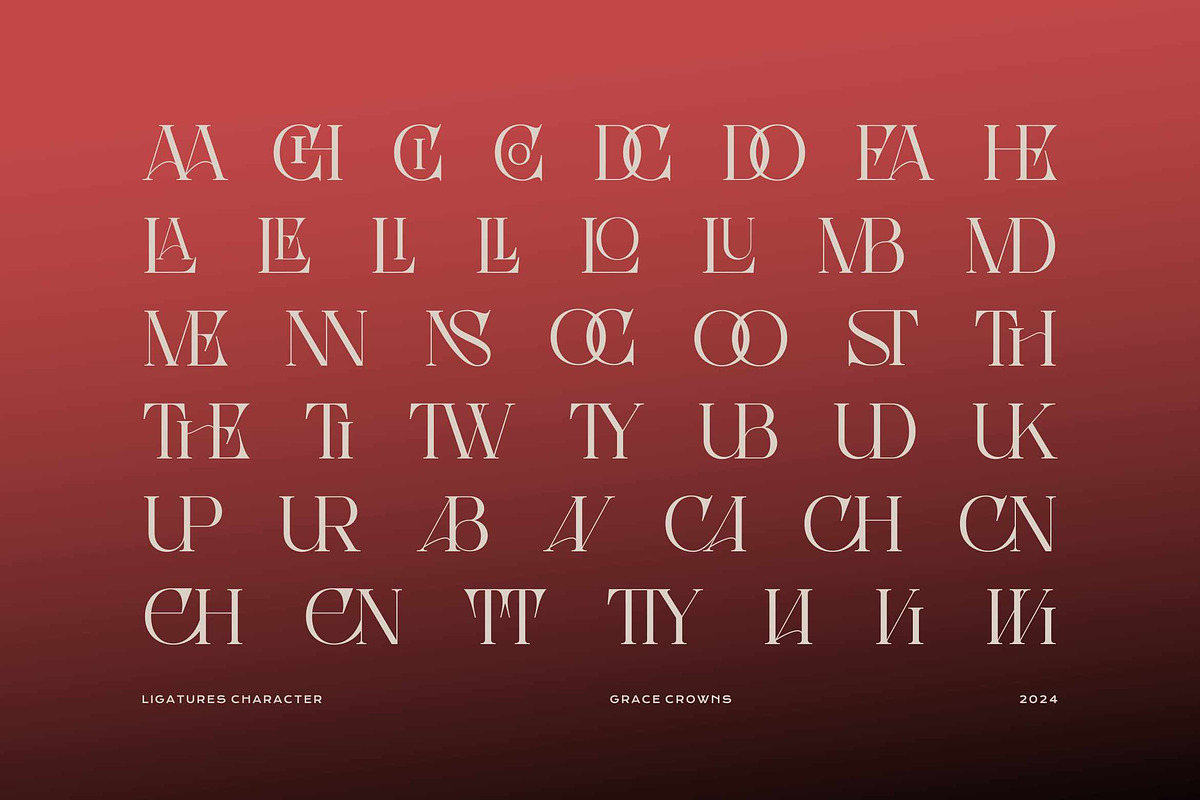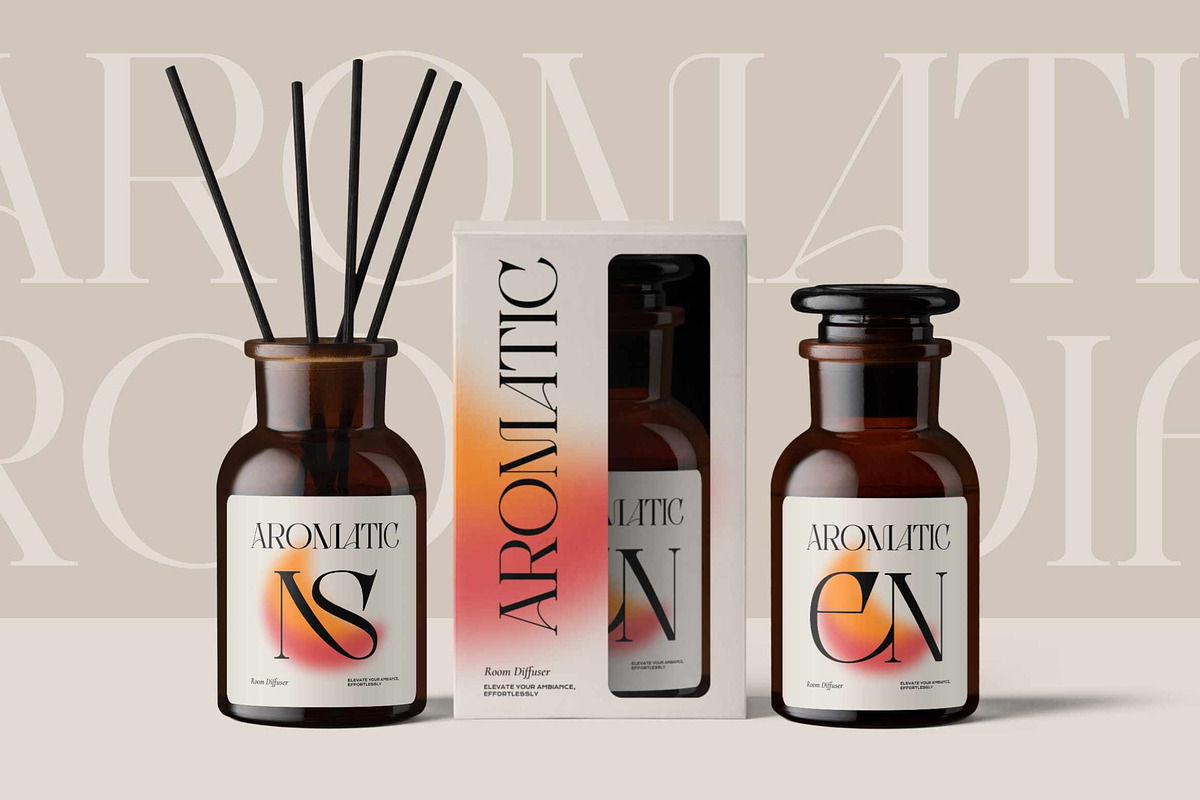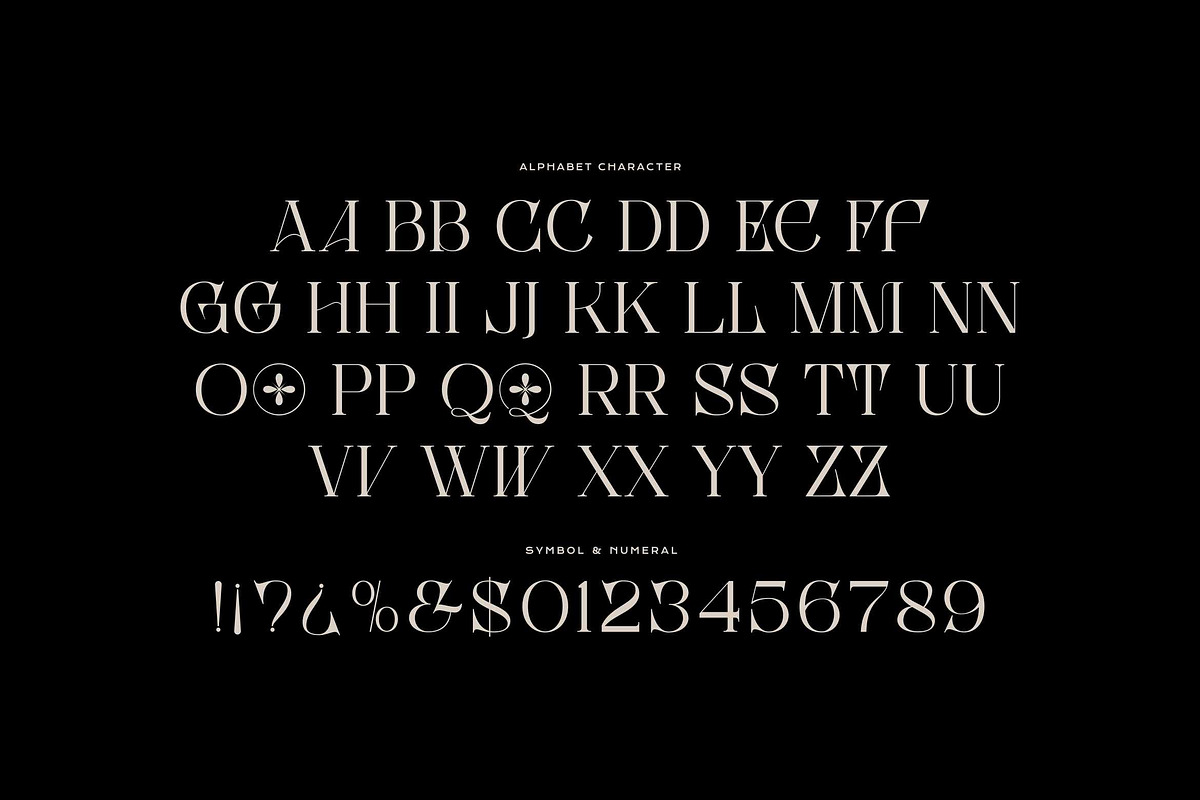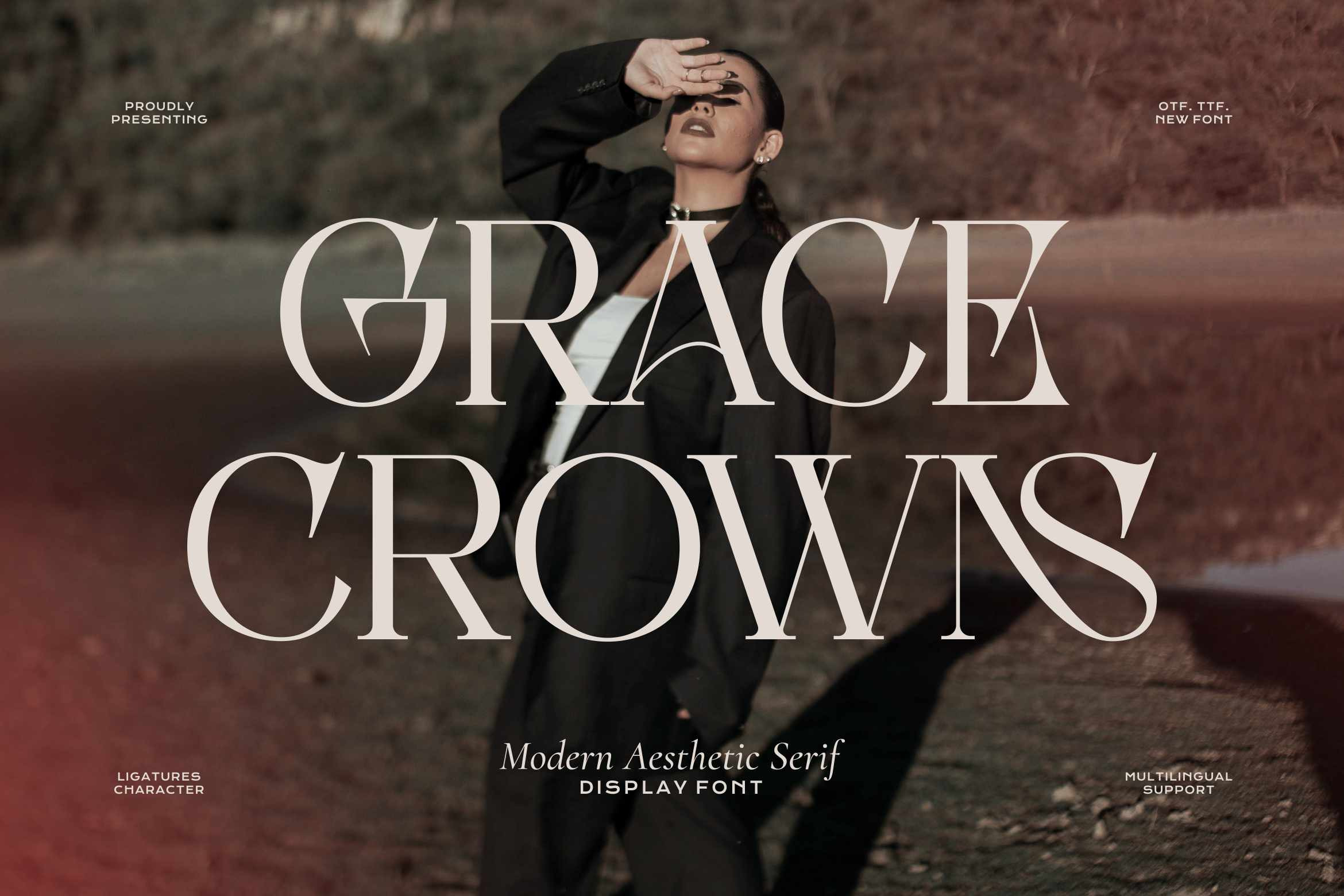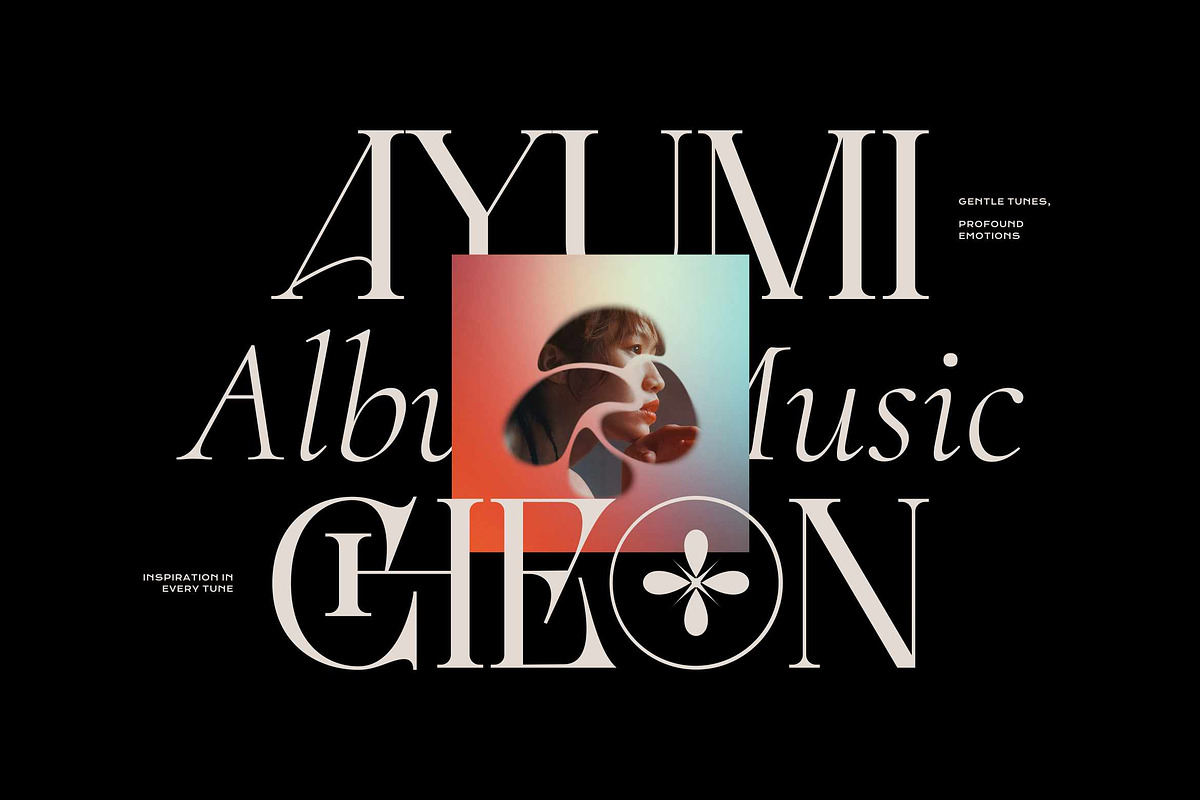
Grace Crowns - Aesthetic Serif Font
Grace crowns is a serif font with luxury, elegant, modern, aesthetic and classy-look. This font crafted specials for luxury-themed projects, comes with alternatives and ligatures, helps to create stunning, beautifully when placed side by side, suitable to use on magazine, social media, branding, wedding invitations, logo, and many more that needs luxury touchs.
- Punctuation, Number, and Symbol
- Opentype Features